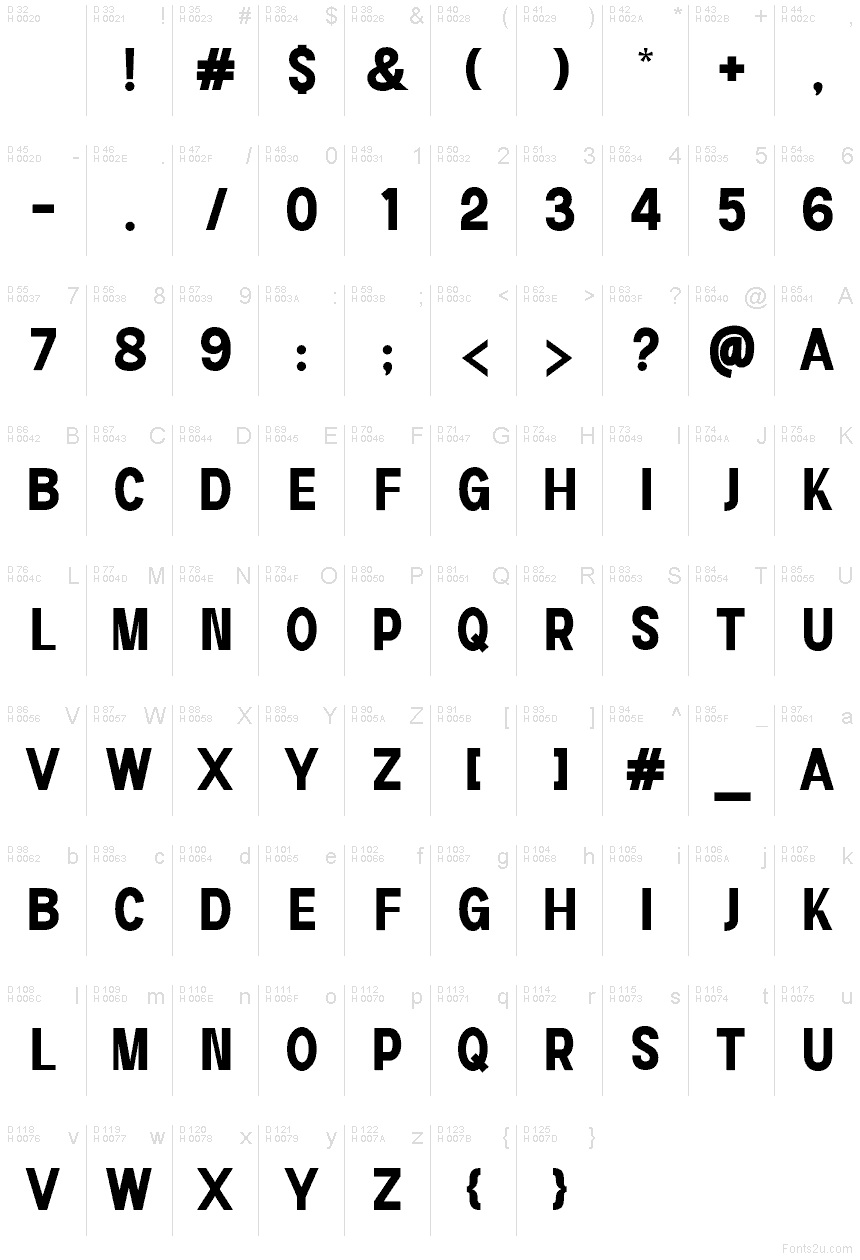
Banky
Banky font by Setyo Wati is a modern sans serif font with geometric shapes evident in all of its characters. It has a clean design style which strongly appears on any occasion it is used. It’s a text that leaves an impact on the viewer, thanks to its naturally strong presence.